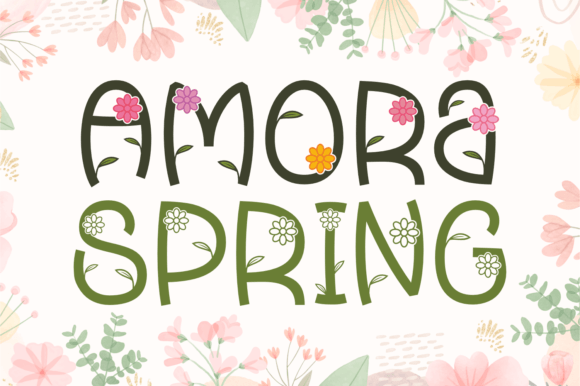
Discover the Whimsical Charm of Amora Spring Font
I’ll never forget the moment I stumbled upon Amora Spring Font while working on a spring-themed invitation project for a dear friend’s baby shower. I had a clear vision of a delicate, floral design, but my font search was yielding nothing but bland, generic options. That’s when I discovered Amora Spring, and it was love at first sight! ✨ The petite flowers and whimsical charm instantly brought a fresh, playful vibe to my design, and I knew I had found the perfect fit.
A Delightful Decorative Font: Honest Review
As I explored Amora Spring Font further, I fell in love with its enchanting simplicity and versatility. Here are some aspects that make it a standout:
• ✨ Delicate floral details that add a touch of nature to any text
• ✅ Whimsical charm perfect for spring-themed designs or projects that require a playful feel
• 🌸 Easy to read and elegant, making it suitable for a wide range of creative endeavors
However, no font is perfect, and Amora Spring has a few minor quirks:
• ⚠️ Limited use in formal or professional designs, as its playful nature might not be suitable for every context
• 🤔 Some users might find the floral details a bit too intricate for small font sizes
The Story Behind Amora Spring
Amora Spring was designed by a talented typographer who drew inspiration from the beauty of blooming flowers and the magic of spring. With a passion for creating fonts that bring joy and whimsy to designs, the designer carefully crafted Amora Spring to be a versatile and enchanting addition to any creative project.
Author Situjuh
What makes Amora Spring Font unique? Amora Spring Font is unique due to its delicate floral details and whimsical charm, making it perfect for designs that require a fresh, playful vibe.
Is Amora Spring Font suitable for body text? While Amora Spring is elegant and easy to read, its floral details might make it more suitable for headings or titles rather than large blocks of body text.